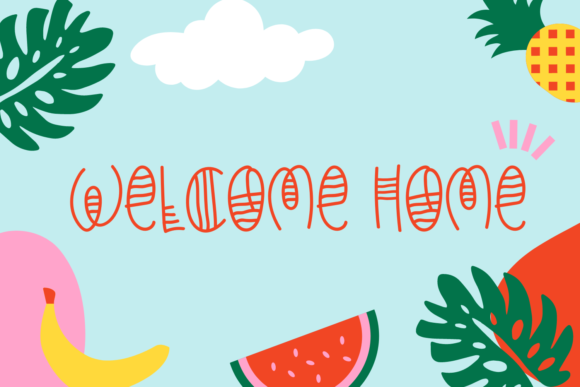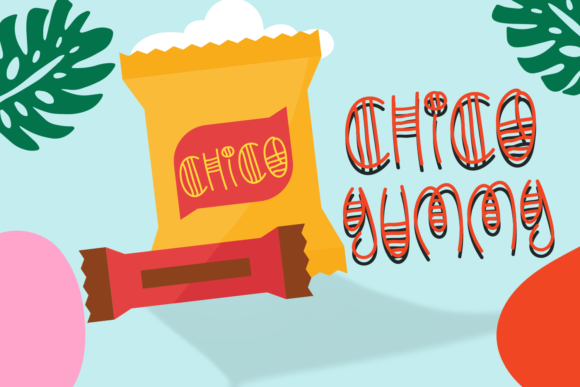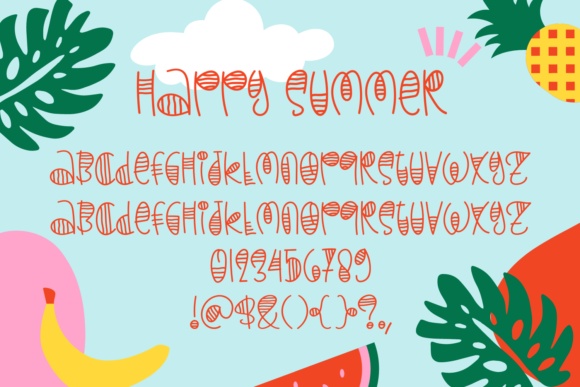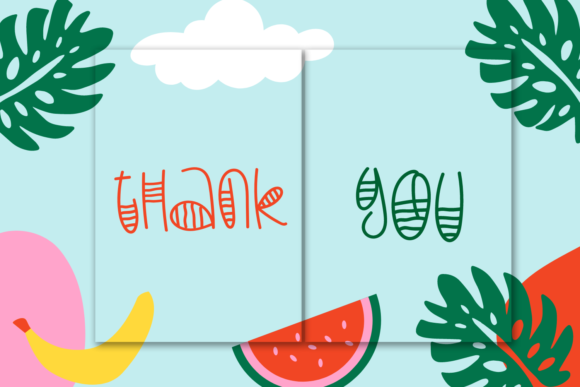
Introducing Happy Summer Font: The Perfect Addition to Your Design Projects
Are you looking for a font that exudes joy, playfulness, and a dash of quirkiness? Look no further than Happy Summer Font! This adorable display font is sure to brighten up your designs and add a touch of whimsy to your projects. In this article, we’ll dive into the features and benefits of Happy Summer Font, and explore how it can elevate your design game.
What is Happy Summer Font?
Happy Summer Font is a cute, chic, and quirky display font that’s perfect for designers and crafters looking to add a personal touch to their projects. This font is designed to evoke the feeling of a carefree summer day, with its lighthearted and jolly vibe. Whether you’re working on a branding project, a social media graphic, or a craft project, Happy Summer Font is sure to bring a smile to your face.
Key Features of Happy Summer Font
- Cute and Quirky Design: Happy Summer Font features a unique and playful design that’s sure to stand out in any project.
- Whimsical and Jolly: This font is designed to evoke a sense of joy and playfulness, making it perfect for projects that require a lighthearted touch.
- Display Font: Happy Summer Font is a display font, making it perfect for headlines, titles, and other prominent text elements.
- Easy to Read: Despite its playful design, Happy Summer Font is easy to read, even at smaller sizes.
Benefits of Using Happy Summer Font
So, why should you choose Happy Summer Font for your design projects? Here are just a few benefits of using this delightful font:
- Adds a Personal Touch: Happy Summer Font is perfect for designers and crafters who want to add a personal touch to their projects.
- Versatile: This font can be used in a wide range of projects, from branding and advertising to social media graphics and craft projects.
- Unique and Eye-Catching: This font is sure to grab attention and make your projects stand out from the crowd.
How to Use Happy Summer Font in Your Design Projects
- Pair it with Other Fonts: Happy Summer Font pairs well with a wide range of other fonts, from serif and sans serif fonts to script fonts and more.
- Use it for Headlines and Titles: This font is perfect for headlines and titles, where its playful design can really shine.
- Experiment with Colors: Happy Summer Font looks great in a wide range of colors, from bright and bold to pastel and soft.
| Font Name | Happy Summer Font |
| Author | Al Ghul |
In conclusion, Happy Summer Font is a delightful and versatile font that’s perfect for designers and crafters looking to add a touch of whimsy to their projects. With its cute and quirky design, whimsical and jolly vibe, and ease of use, this font is sure to brighten up your designs and bring a smile to your face. So why not give Happy Summer Font a try today and see the difference it can make in your design projects?
- Use it for Summer-Themed Projects: Happy Summer Font is perfect for summer-themed projects, such as beach-themed graphics, summer sale promotions, and more.
- Experiment with Different Sizes: This font looks great at a wide range of sizes, from small and delicate to large and bold.
- Pair it with Summer-Inspired Images: Happy Summer Font pairs well with summer-inspired images, such as photos of beaches, flowers, and sunshine.